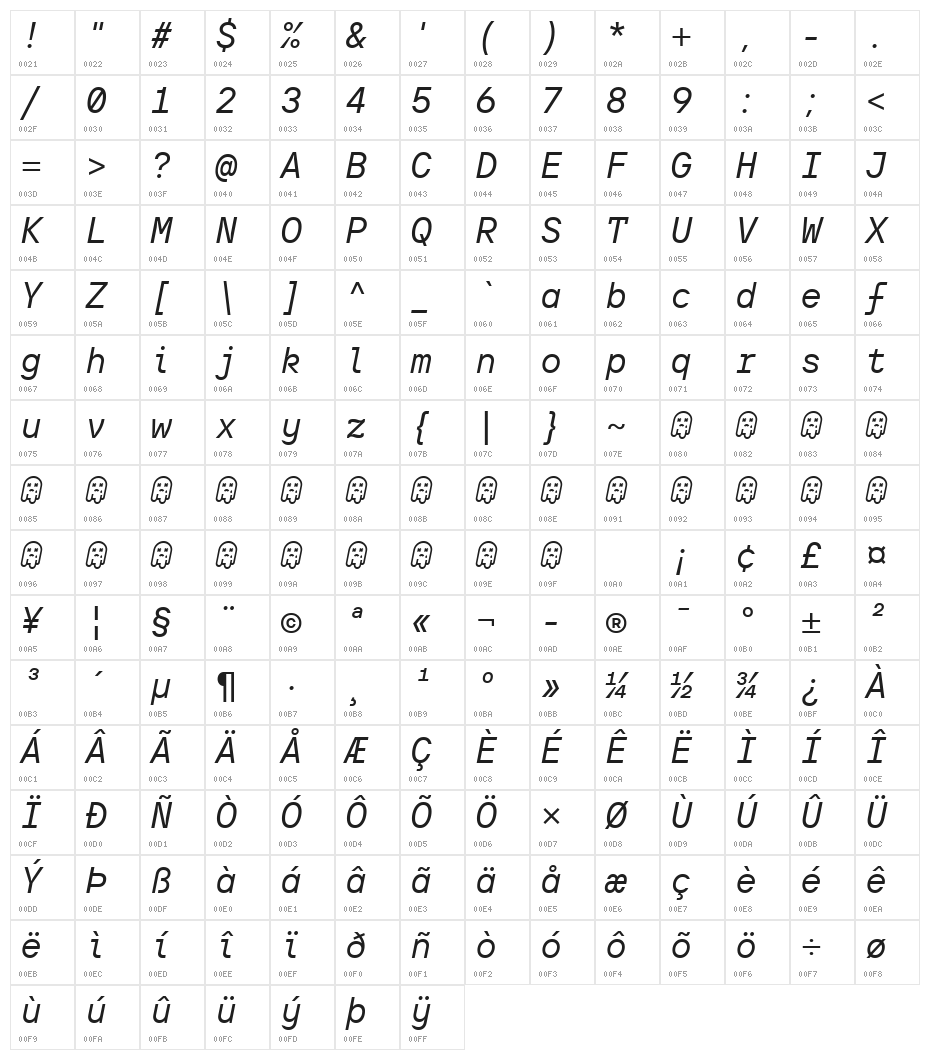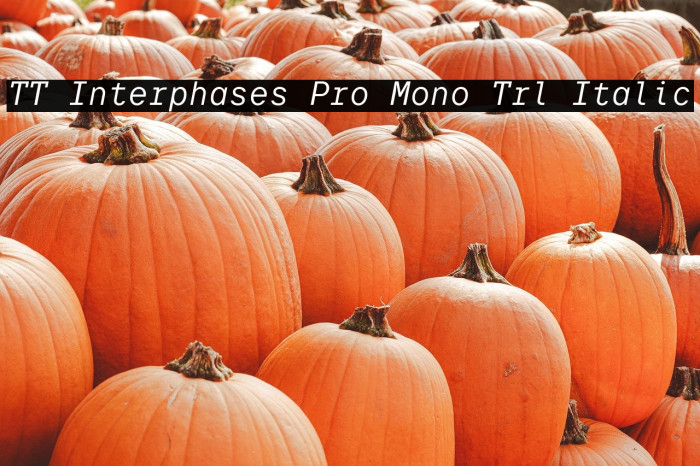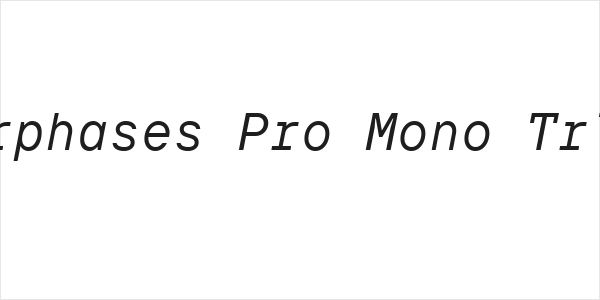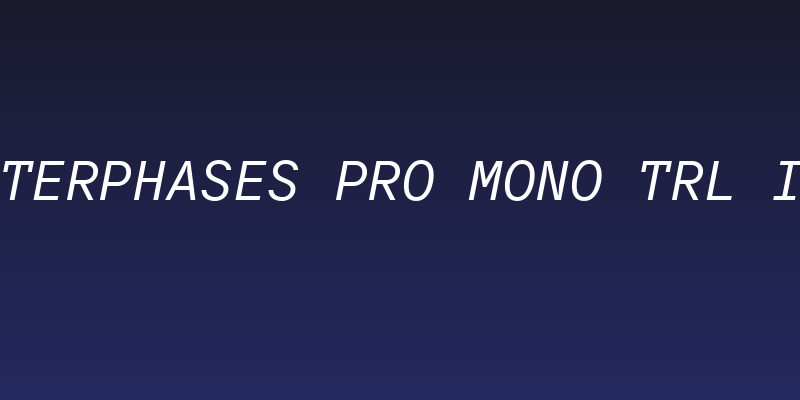
TT Interphases Pro Mono Trl Italic Font
TT Interphases Pro Mono Trl Italic Description
This font features a clean, modern design with a monospaced structure, ensuring each character occupies the same width. The italic style adds a dynamic and forward-leaning appearance, enhancing readability and visual interest. Its geometric shapes and uniform stroke widths contribute to a sleek and professional look, making it suitable for technical and digital applications. The font maintains clarity across various sizes, with distinct letterforms that prevent confusion between similar characters. Its balanced proportions and consistent alignment make it ideal for coding, data presentation, and other contexts where precision is key.
| Use Case | Coding, Technical documentation, Digital interfaces |
| Proposed Projects | Ideal for coding, technical documentation, digital interfaces, and data presentation. |